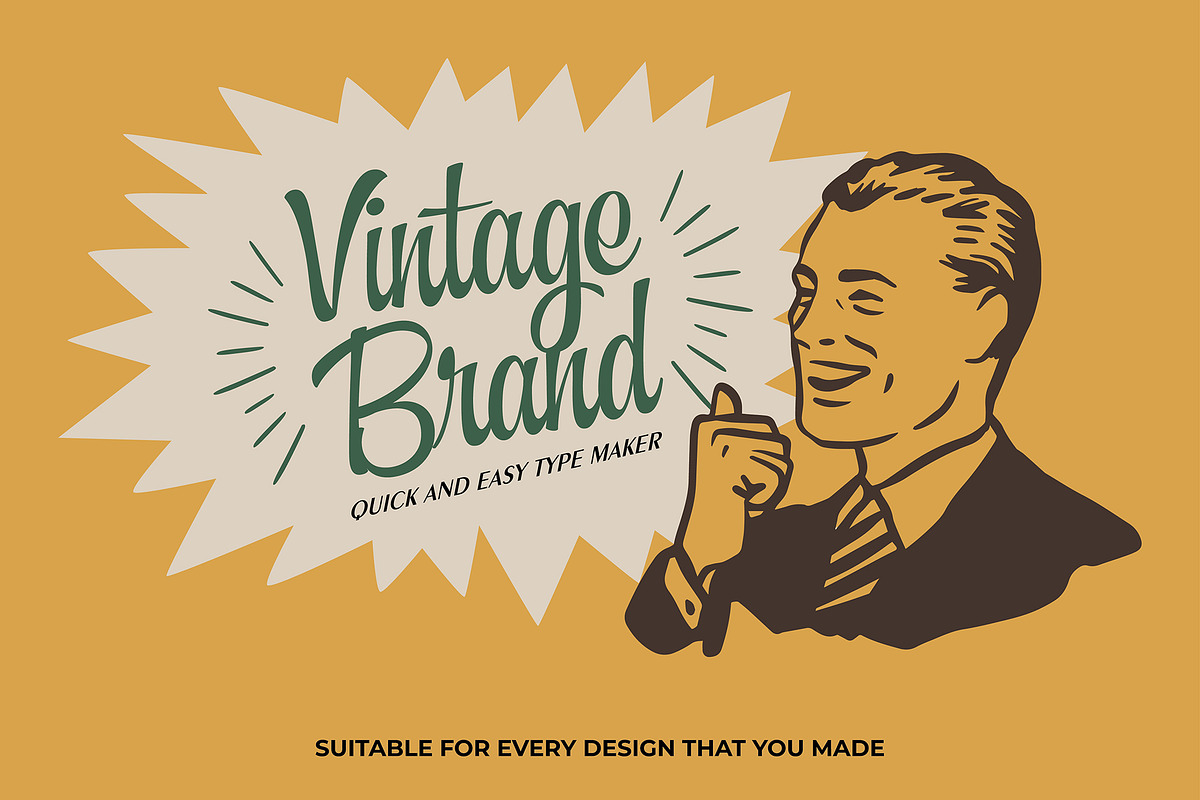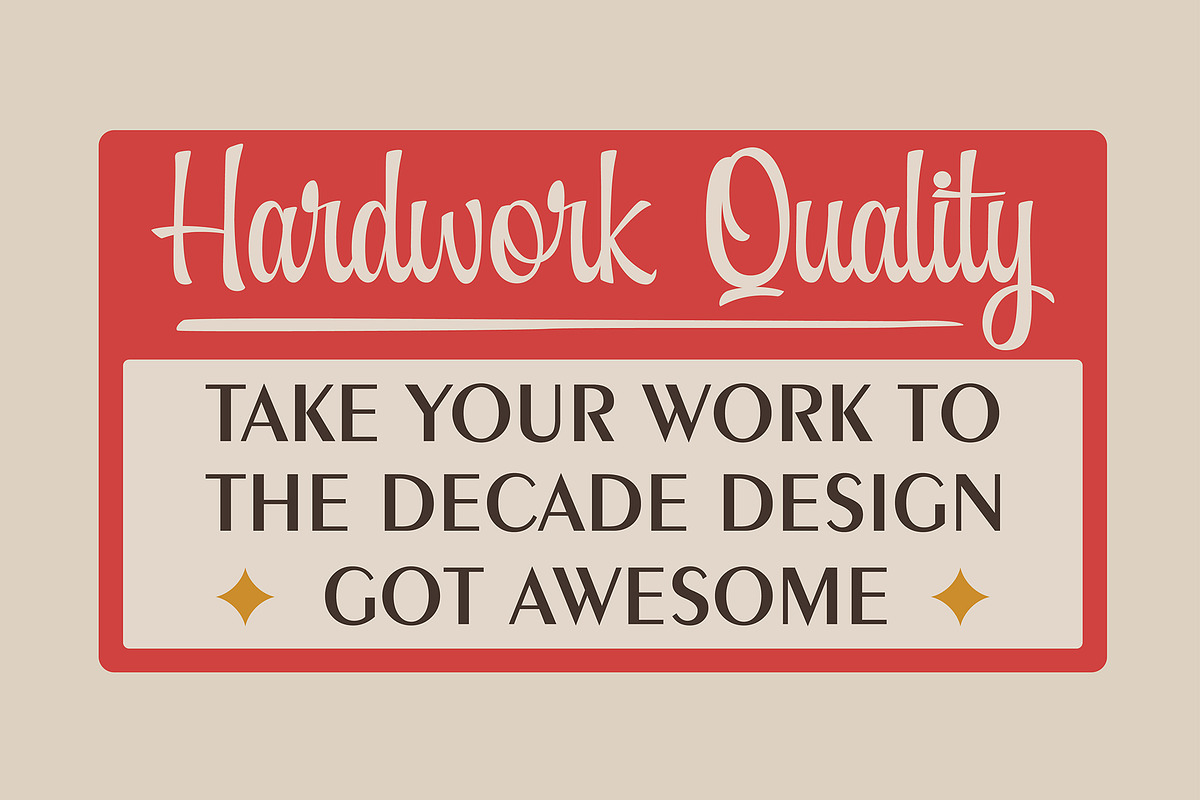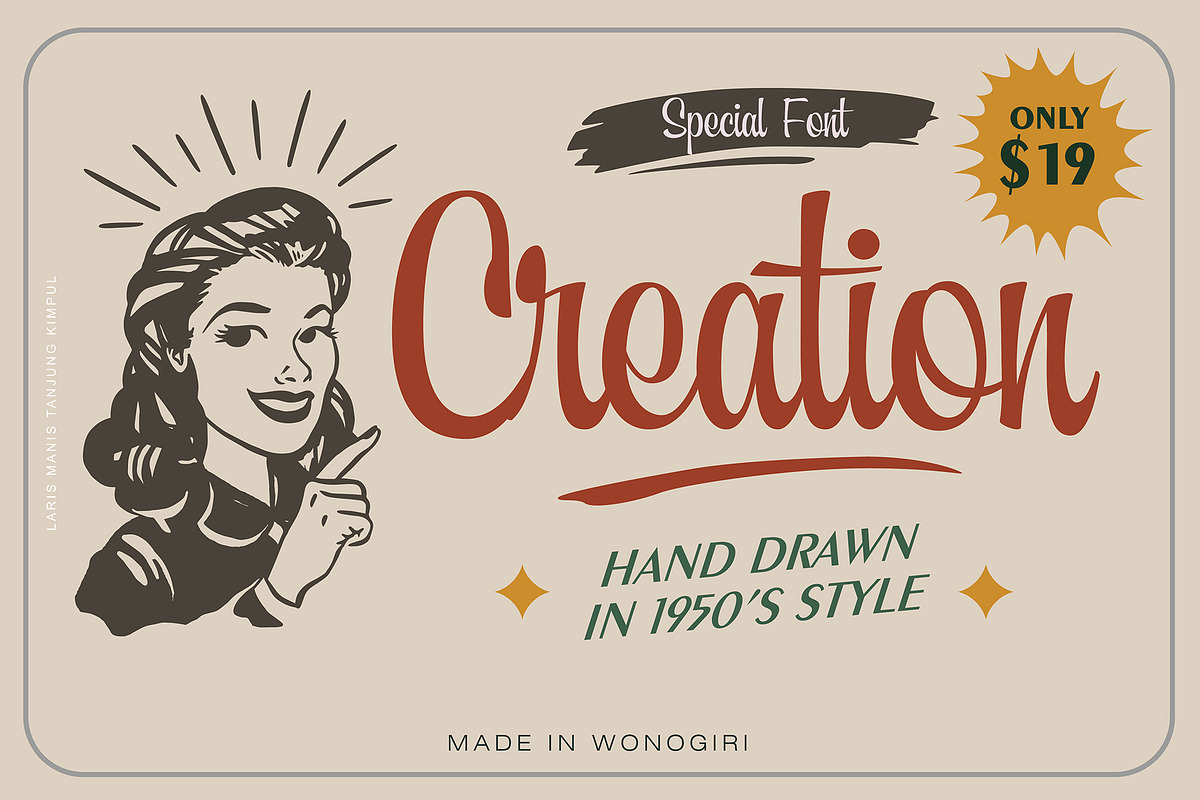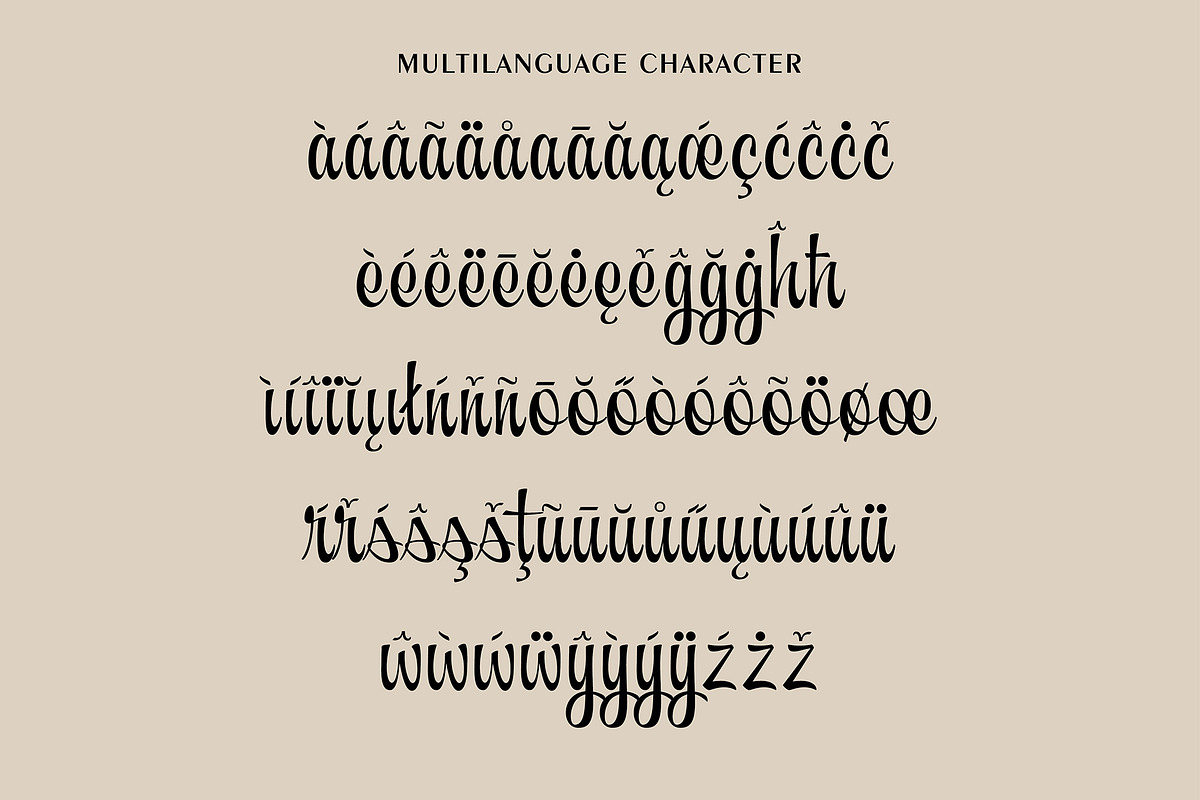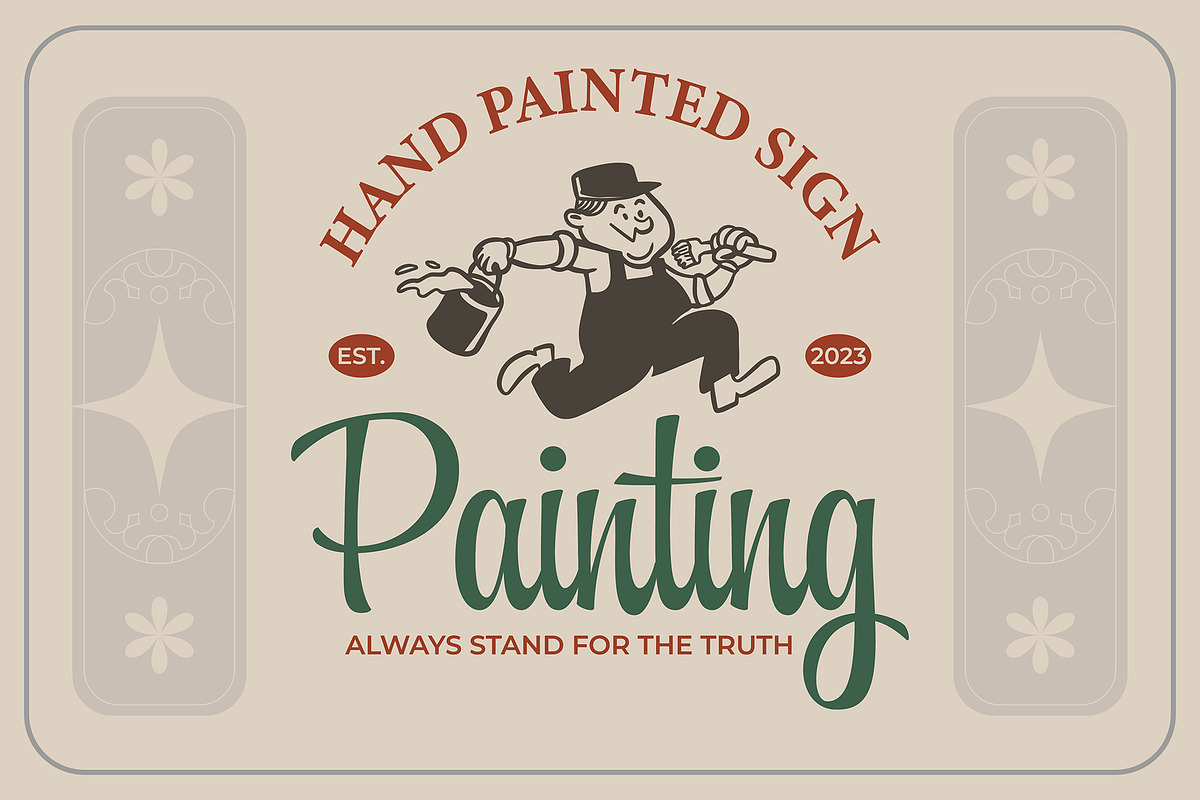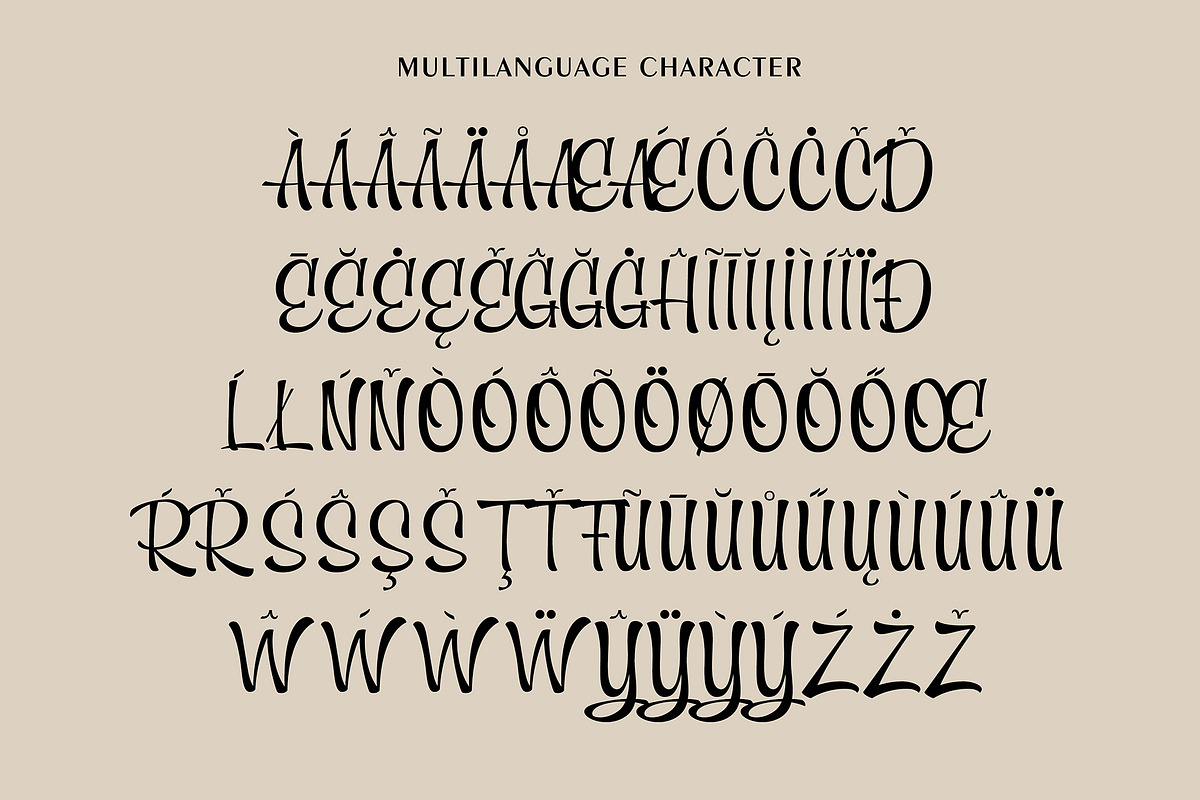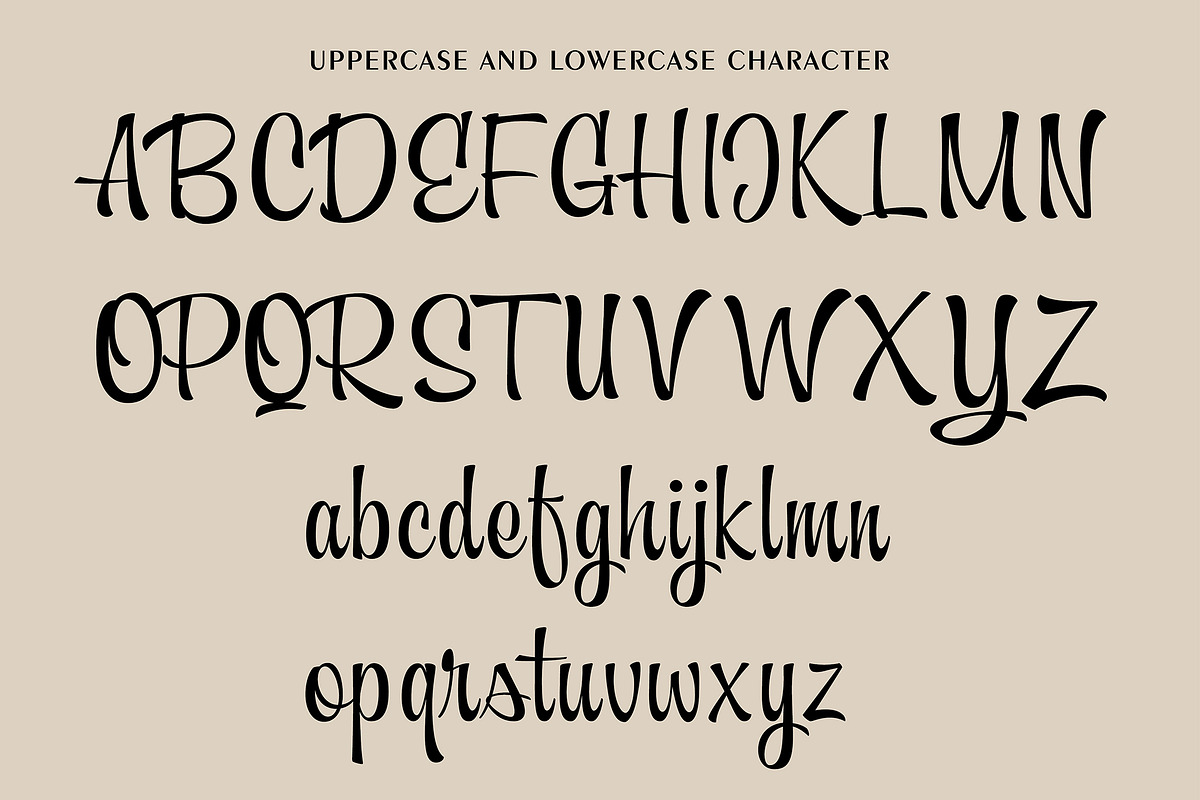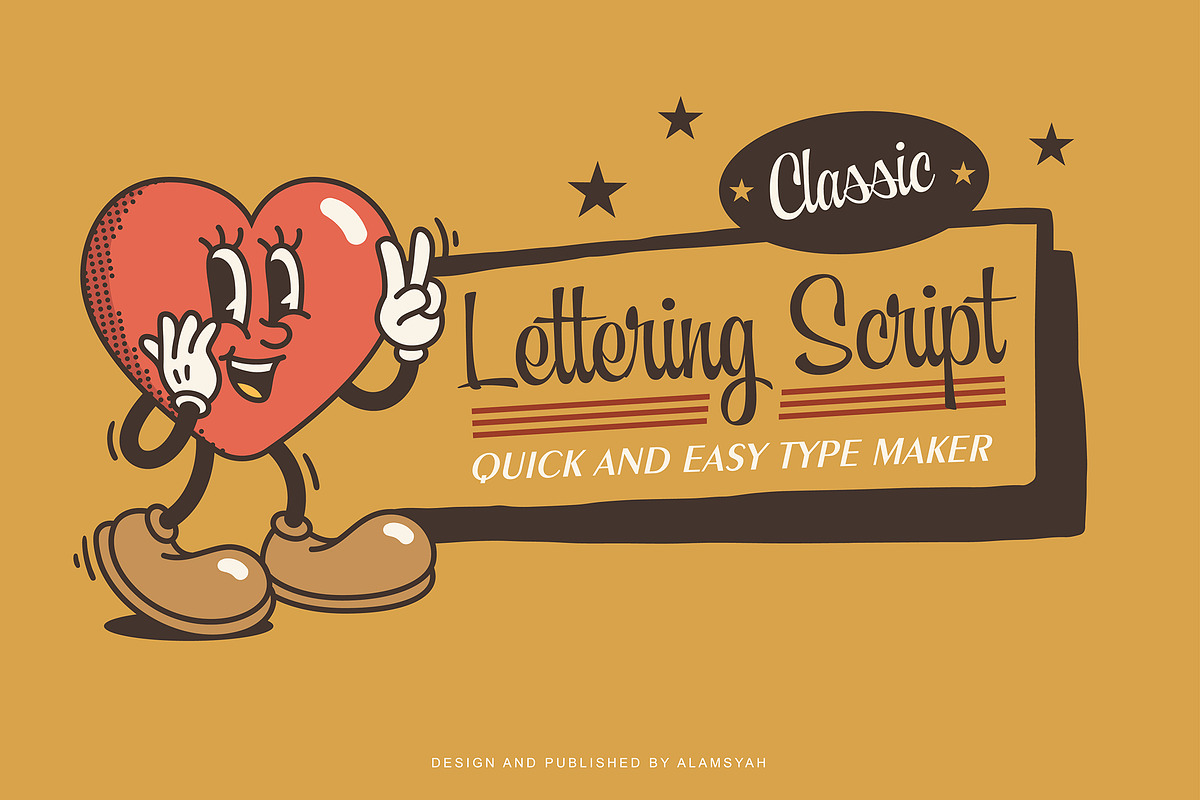
Creation
Creation is a script with upright style typeface that looks firmer and looks more vintage and has an attractiveness when you see it. Each letter shape has been designed to have a character that is easily recorded in the mind.
This font has retro and classic characters, clean lines and smooth curves give any project an extra touch of class.
A script modern and brush typeface that has own unique style & vintage look. This typeface is perfect for an large point sizes, for example in magazine layouts, packaging, book, title design, fashion brand, clothes, lettering, quotes design and many other ways to your work.
We make all the caracters is PUA encoded and multilingual.